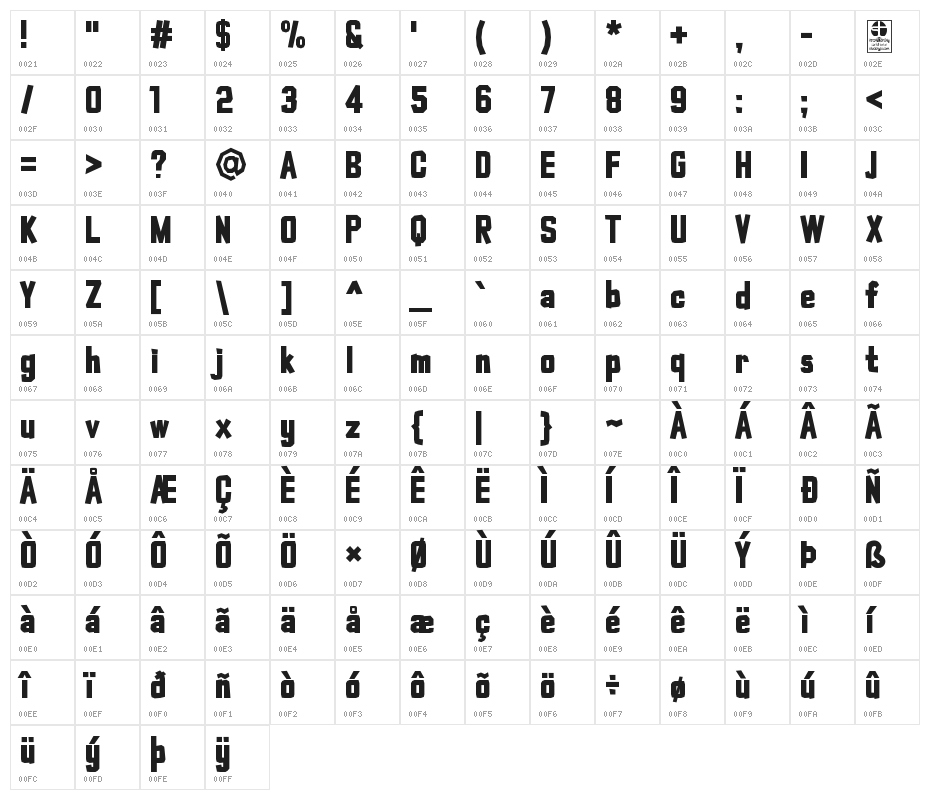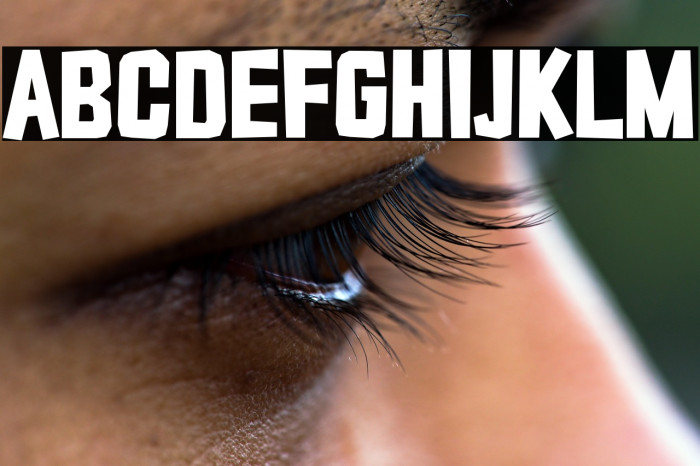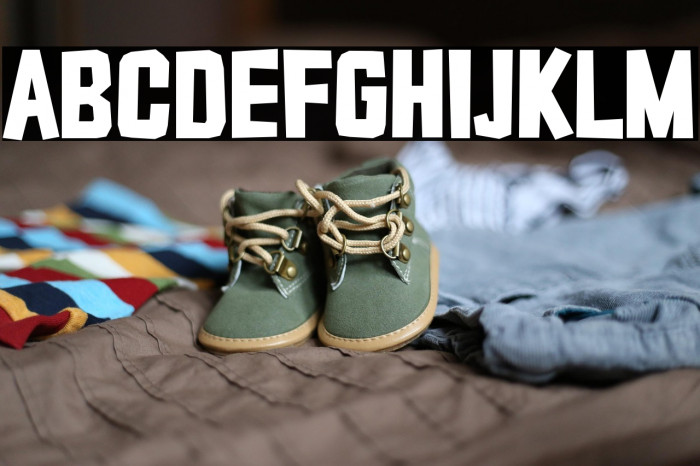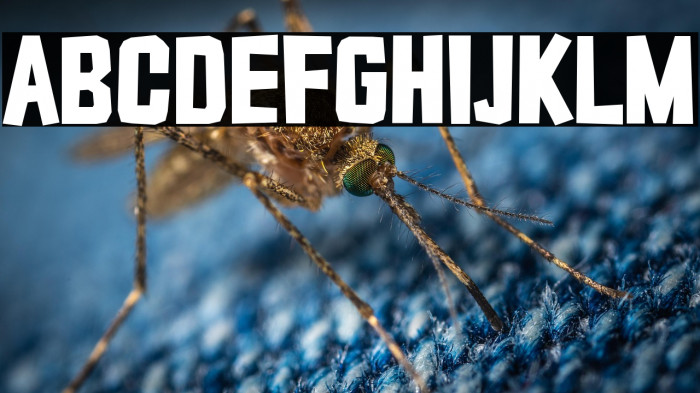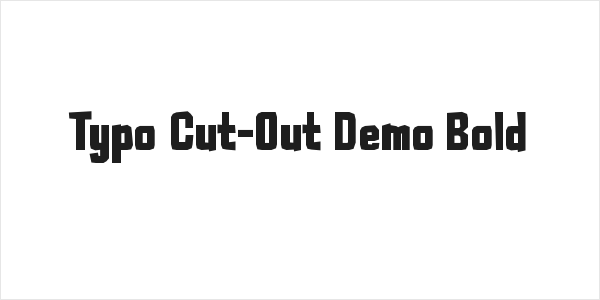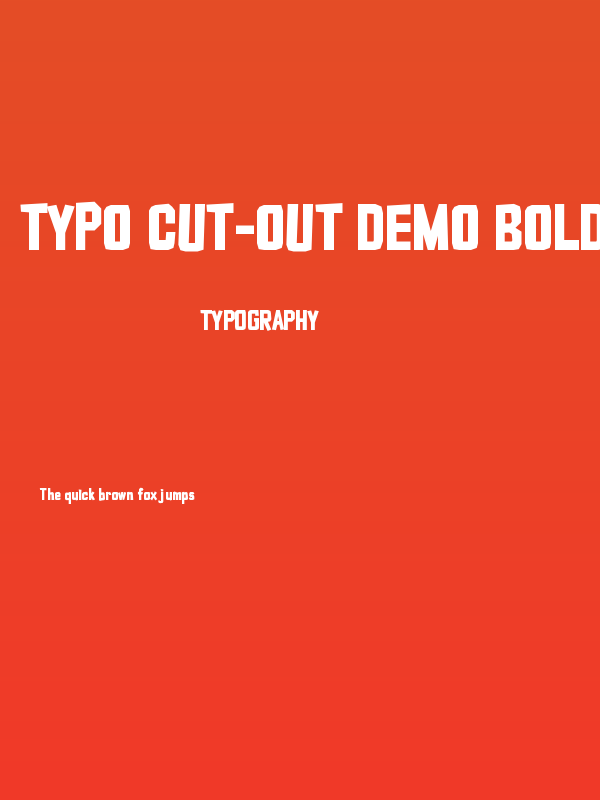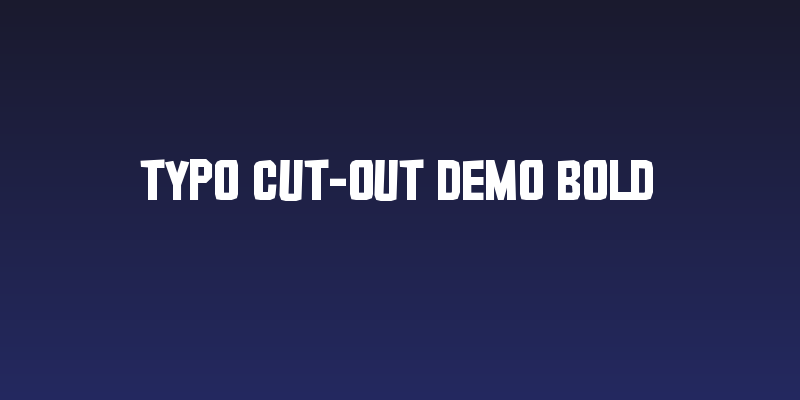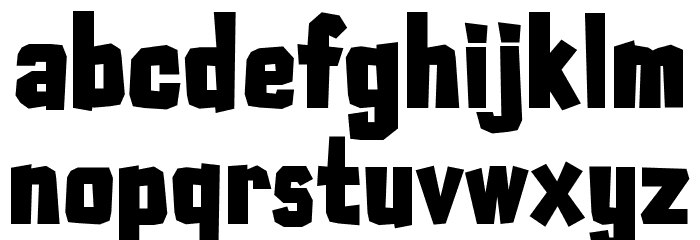
Typo Cut-Out Demo Bold Font
Typo Cut-Out Demo Bold Description
This bold and striking font features a cut-out style that gives it a unique, handcrafted appearance. The characters are bold and blocky, with irregular edges that suggest a playful, artistic vibe. The uppercase and lowercase letters maintain a consistent weight, providing a strong visual impact. Numbers and special characters are designed with the same boldness, ensuring uniformity across all text. This font is perfect for projects that require a bold statement or a creative touch, such as posters, headlines, or branding materials.
| Proposed Projects | Ideal for posters, headlines, branding, and creative projects requiring a bold statement. |